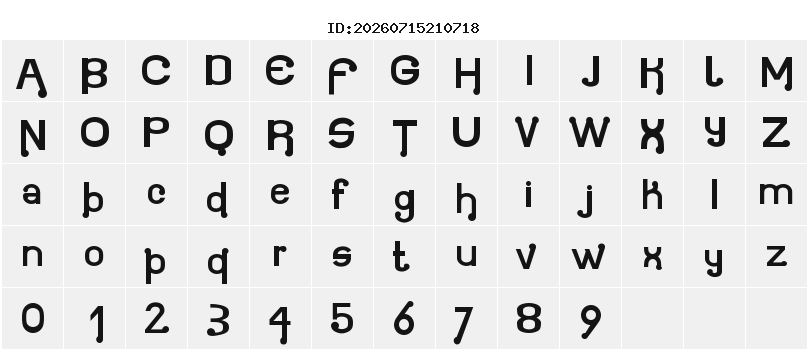
Atomium Preview
• Font Name: Atomium
• Full Font Name: Atomium
• Version: Version 1.00 August 28, 2011, initial release
• Designer: Matias Romero
About Atomium.ttf
Atomium.ttf is a modern, elegant sans-serif font designed for ultimate readability and visual harmony. Perfect for branding, headlines, web design, and print materials.